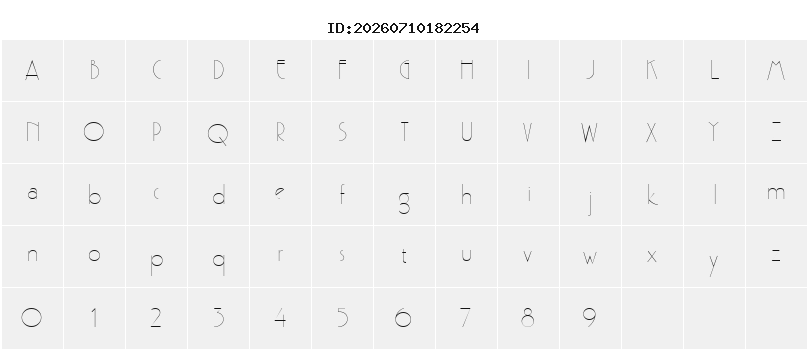
• Font Name: Gaston
• Font ID: Altsys Fontographer 4.1 Gaston Normal
• Full Font Name: Gaston Normal
• Version: Altsys Fontographer 4.1 12/22/94
• PostScript Name: GastonNormal
• Copyright: Copyright 1994 Bay Animation Inc. All Rights Reserved.
About Gaston.ttf
Gaston.ttf is a modern, elegant sans-serif font designed for ultimate readability and visual harmony. Perfect for branding, headlines, web design, and print materials.